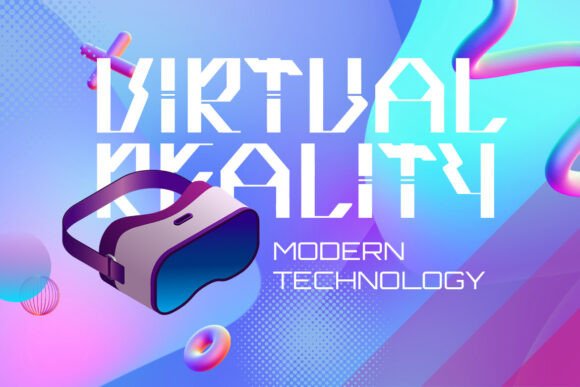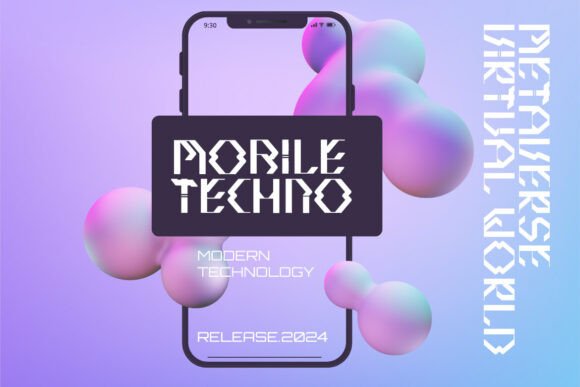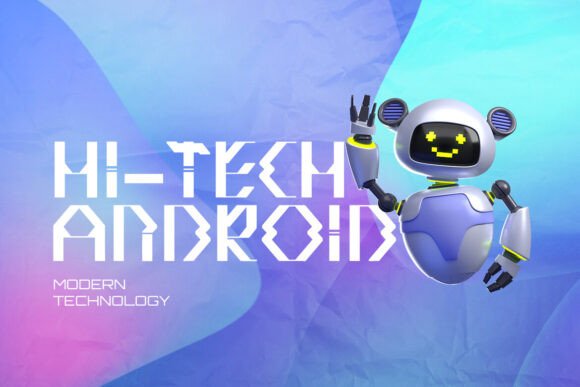
Introduction to Quadtron Font
Imagine you’re brainstorming ideas for a futuristic sci-fi movie poster, and you need a font that screams ‘high-tech’ and ‘innovative’. The perfect moment of inspiration strikes, and you stumble upon the Quadtron Font – a bold, futuristic font that instantly elevates your design to the next level. With its sleek, high-tech feel and sharp edges, this font is the ultimate game-changer for designers seeking to capture the essence of the future.
Key Features of Quadtron Font
- Unique blend of futuristic and geometric elements, perfect for creative projects.
- Quadtron Font supports a wide range of languages, making it a valuable asset for international design projects.
- Includes a comprehensive character set, including uppercase and lowercase letters, numbers, and special characters.
Honest Review: Quadtron Font
I recently had the chance to work with the Quadtron Font, and I must say it’s been a pleasant experience. This free download has become one of my go-to design resources for creative projects.
What works well is the font’s versatility – it can be used for both bold and subtle designs. I particularly enjoy the high quality of the font, which makes it perfect for printing and digital applications.
- ✨ Unique design: The Quadtron Font has a distinct, futuristic look that sets it apart from other fonts.
- ✨ Transparent background: This feature makes it easy to layer the font over other design elements.
One limitation I’ve noticed is that the font might be a bit too bold for some projects. It’s essential to use it judiciously and balance it with other design elements to avoid overwhelming the viewer.
Overall, I’m impressed with the Quadtron Font, and I would definitely recommend it to designers looking for a high-quality, unique font for their creative project.
While it’s not perfect, the Quadtron Font is a valuable addition to any design resource collection. With a little creativity, you can achieve stunning results with this font.
Common Use Cases for Quadtron Font
The Quadtron Font is a versatile design resource that can be used in a variety of creative projects, including business cards, brochures, and social media graphics. Its high quality design makes it perfect for presentations, posters, and flyers.
Tips for Getting the Most Out of Quadtron Font
To get the most out of the Quadtron Font, use it with a transparent background to create a clean and modern design. You can also experiment with different font sizes and styles to add visual interest to your design. With its transparent background, the Quadtron Font is perfect for creating designs with a minimalist aesthetic.